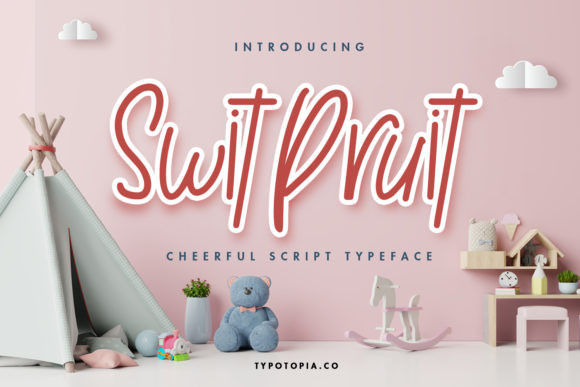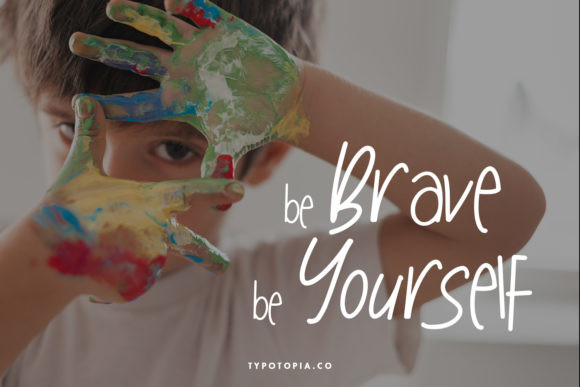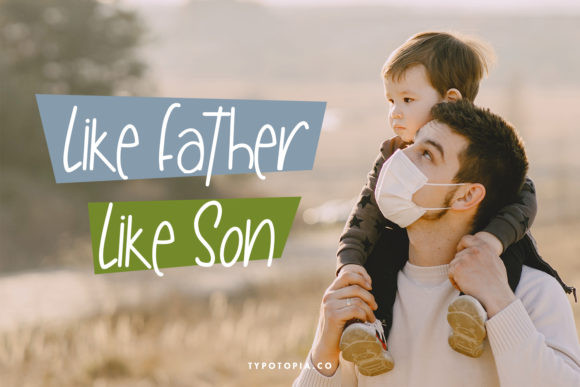
Swit Pruit Font
Swit Pruit is a cute and quirky handwritten font. Whether you’re looking for fonts for Instagram or calligraphy scripts for DIY projects, this font will turn any creative idea into a true piece of art!